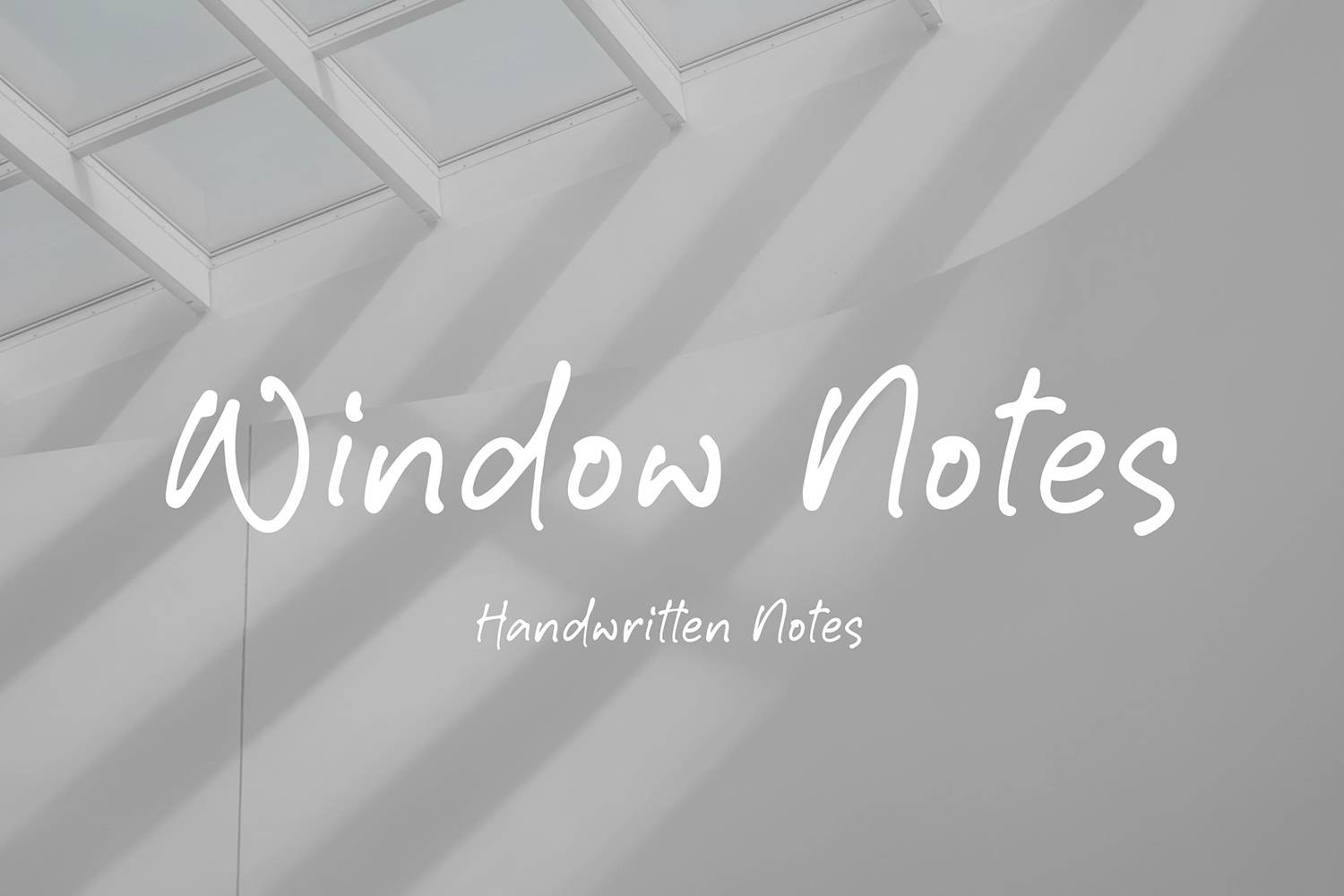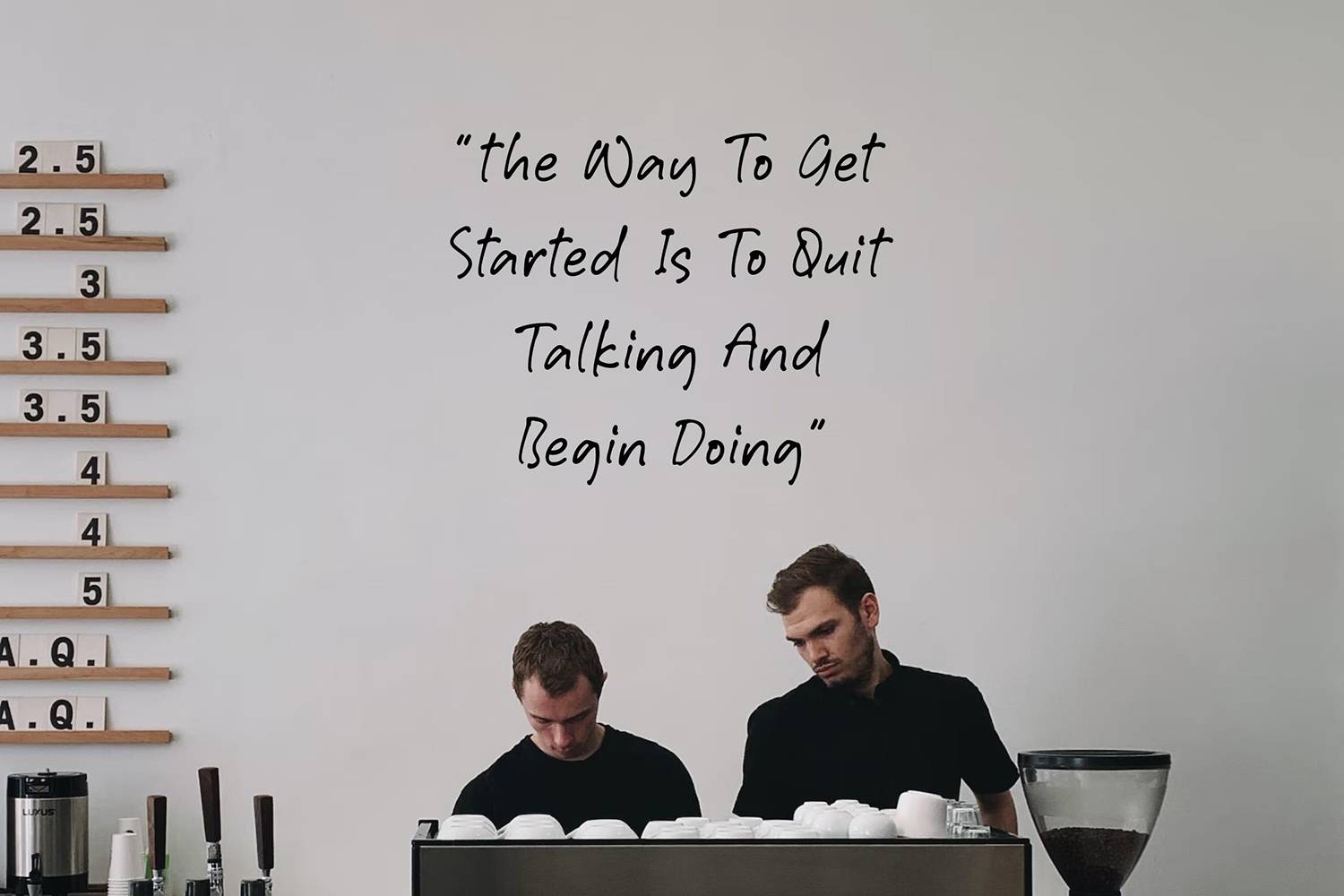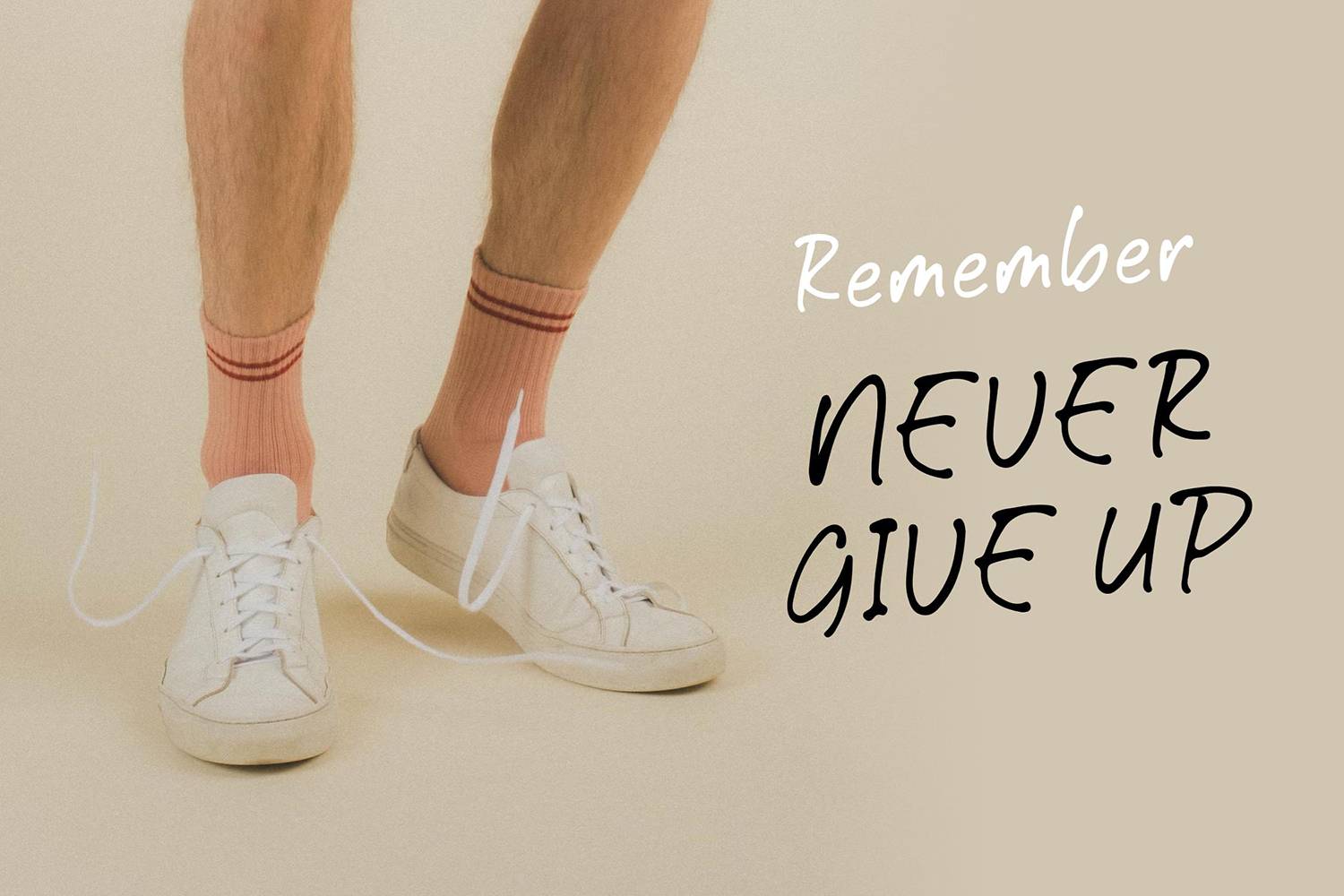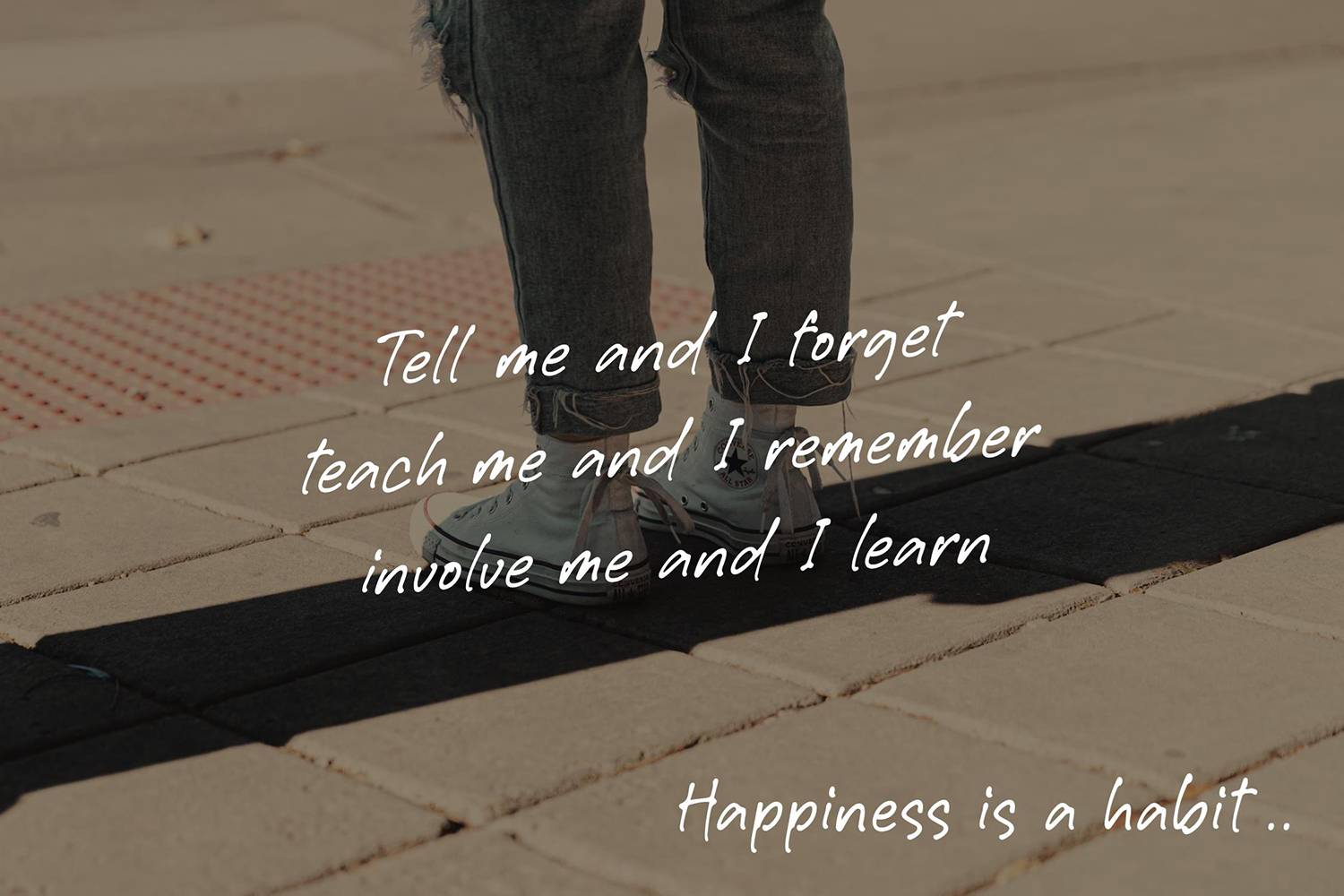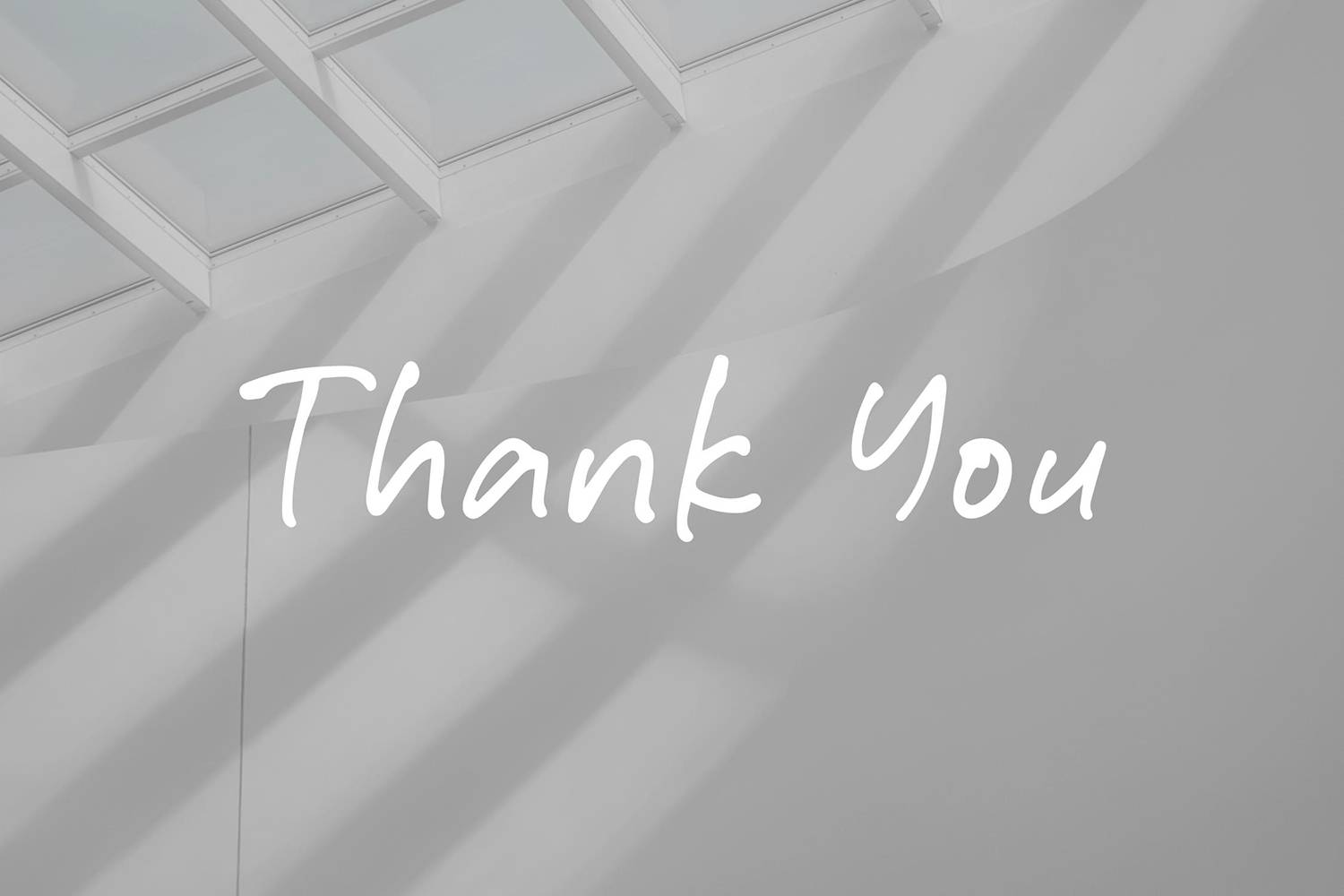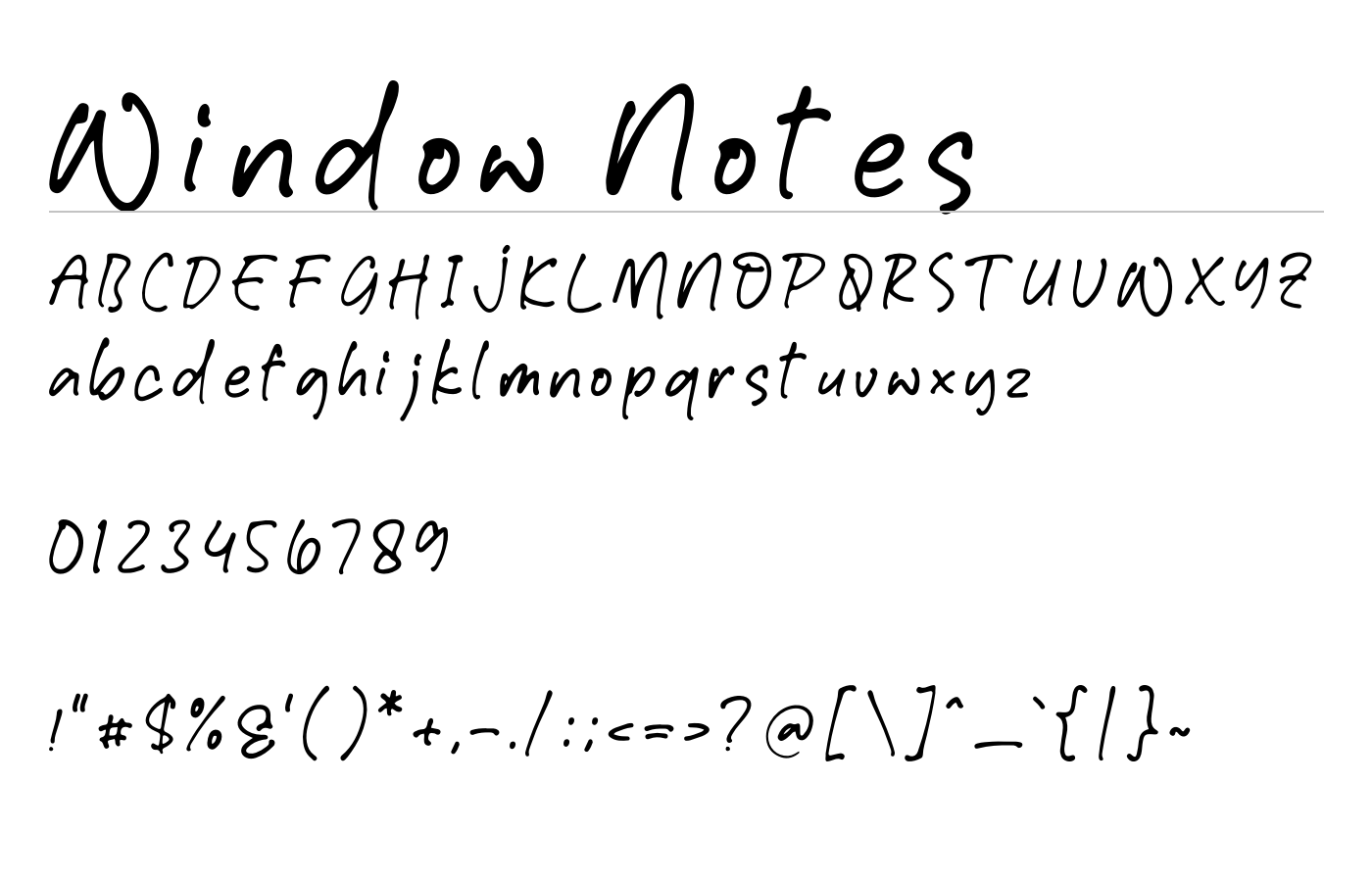
Window Notes is a casual, handwritten script font that captures a natural and personal feel with its slightly uneven lines and lively strokes. Its light weight and narrow width, combined with playful letterforms and clear legibility, make it ideal for projects seeking a friendly, informal touch such as creative notes, invitations, or lifestyle branding. This font works well in settings where a warm, approachable, and human vibe is desired without sacrificing clarity.
Window Notes Font
About Window Notes Font
| Font family | Window Notes Font |